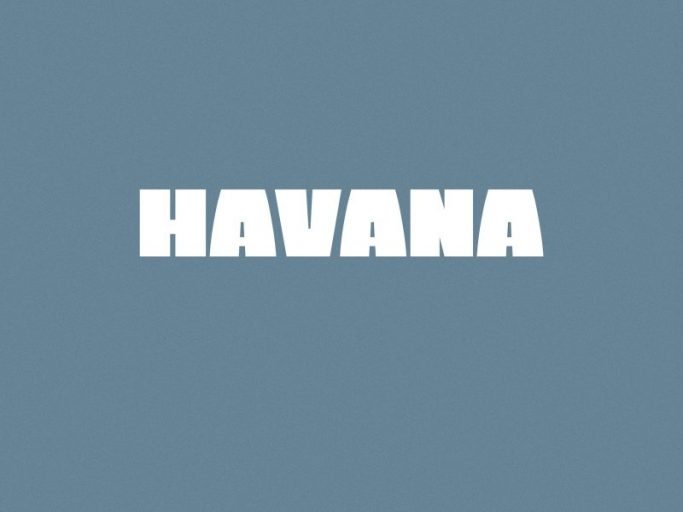
Havana Bold Sans Serif Font
Hi Ladies and Gentleman! Introducing Havana Font! Havana is a modern bold sans serif font with a warm vintage atmosphere. Designed to fit current design trends. It’s perfect for zines, advertising, basically anything that you want to have a worn worn photocopied look without having to bother..